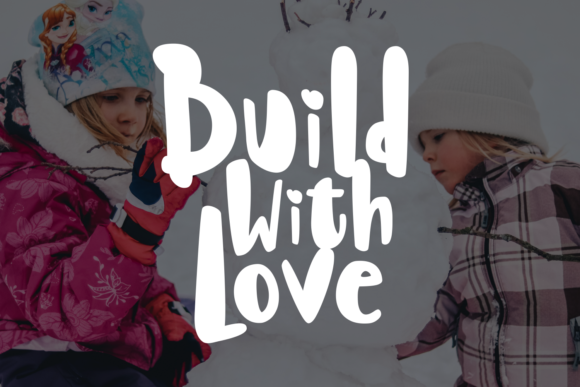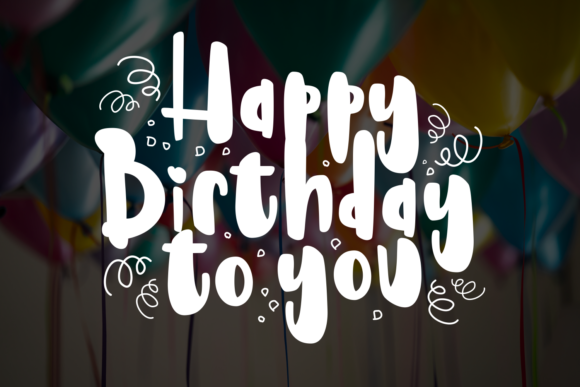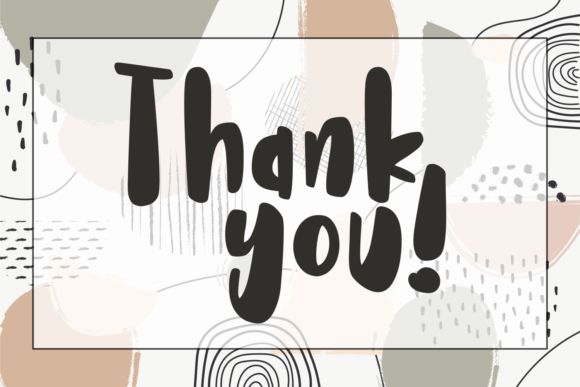
Introduction to Nekom Font
Nekom is a cute and chunky lettered display font.
This dazzling display font will turn any creative idea into a standout .
Key Features of Nekom Font
Why Choose Nekom Font?
Nekom Font offers exceptional quality and versatility, making it a valuable addition to your design toolkit. Whether you’re creating for personal projects or commercial use, Nekom Font delivers professional results.